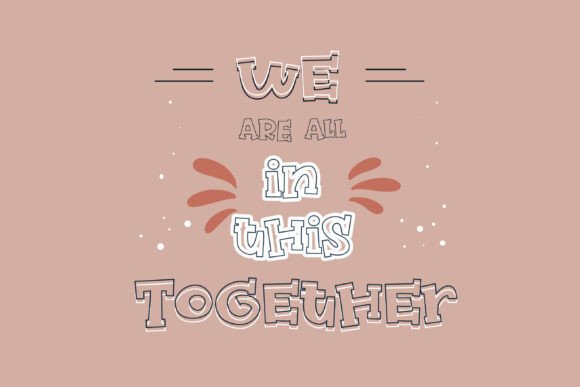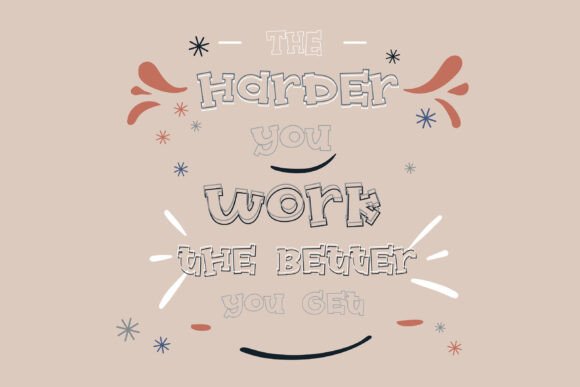
Bellyfat Font
This hand-crafted font is a whimsical serif with chunky, thick, whimsical lettering.Outline version included.A hand-crafted font is a font that is designed to look like it was written by hand. It is often used for invitations, greeting cards, and other items. Handwritten fonts can be either formal or informal, and they can be used for a variety of purposes.